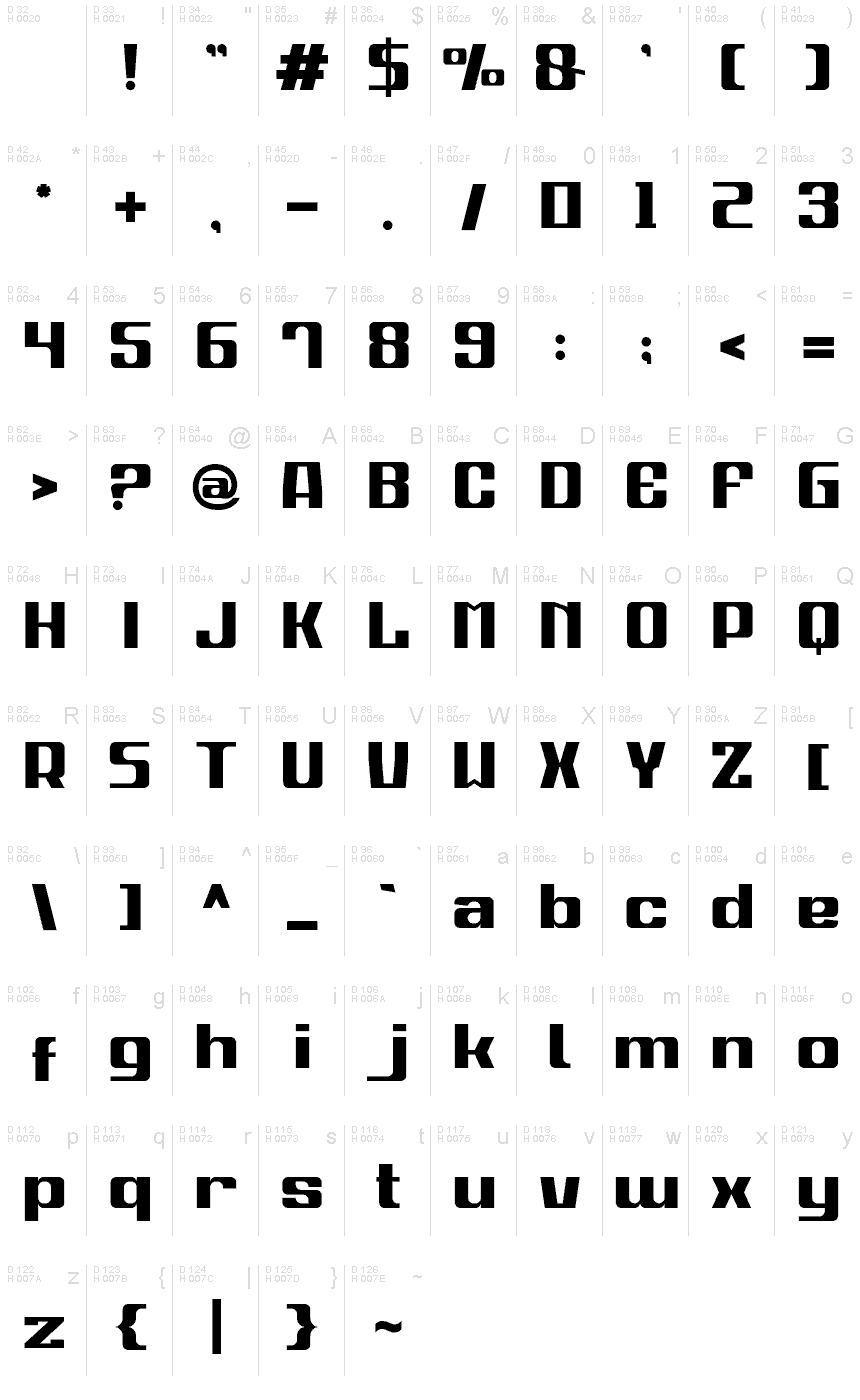
Sport Gazenox
Sport Gazenox font by Qr Design is a geometric expanded display typeface inspired by the aesthetics of modern sports science. It features letterforms with rare geometric shapes, combined with ultra-expanded width, which results in the minimum overall height required in each character’s design. A contemporary technology vibe takes over each letter making them all stand out and attract attention separately, and as part of words.
Use this free display font for text in posters, flyers, showrooms, invitations to events such as racing competitions or triathlons, websites and mobile apps with a techy/sporty essence, bulletins for gyms or stadiums… the list goes on!
Sport Gazenox Font is a bold and authentic display font.
This versatile font is ideal for various branding projects, including logos, sports, and more.
It stands out in a wide range of contexts.
Use this free display font for text in posters, flyers, showrooms, invitations to events such as racing competitions or triathlons, websites and mobile apps with a techy/sporty essence, bulletins for gyms or stadiums… the list goes on!
Sport Gazenox Font is a bold and authentic display font.
This versatile font is ideal for various branding projects, including logos, sports, and more.
It stands out in a wide range of contexts.